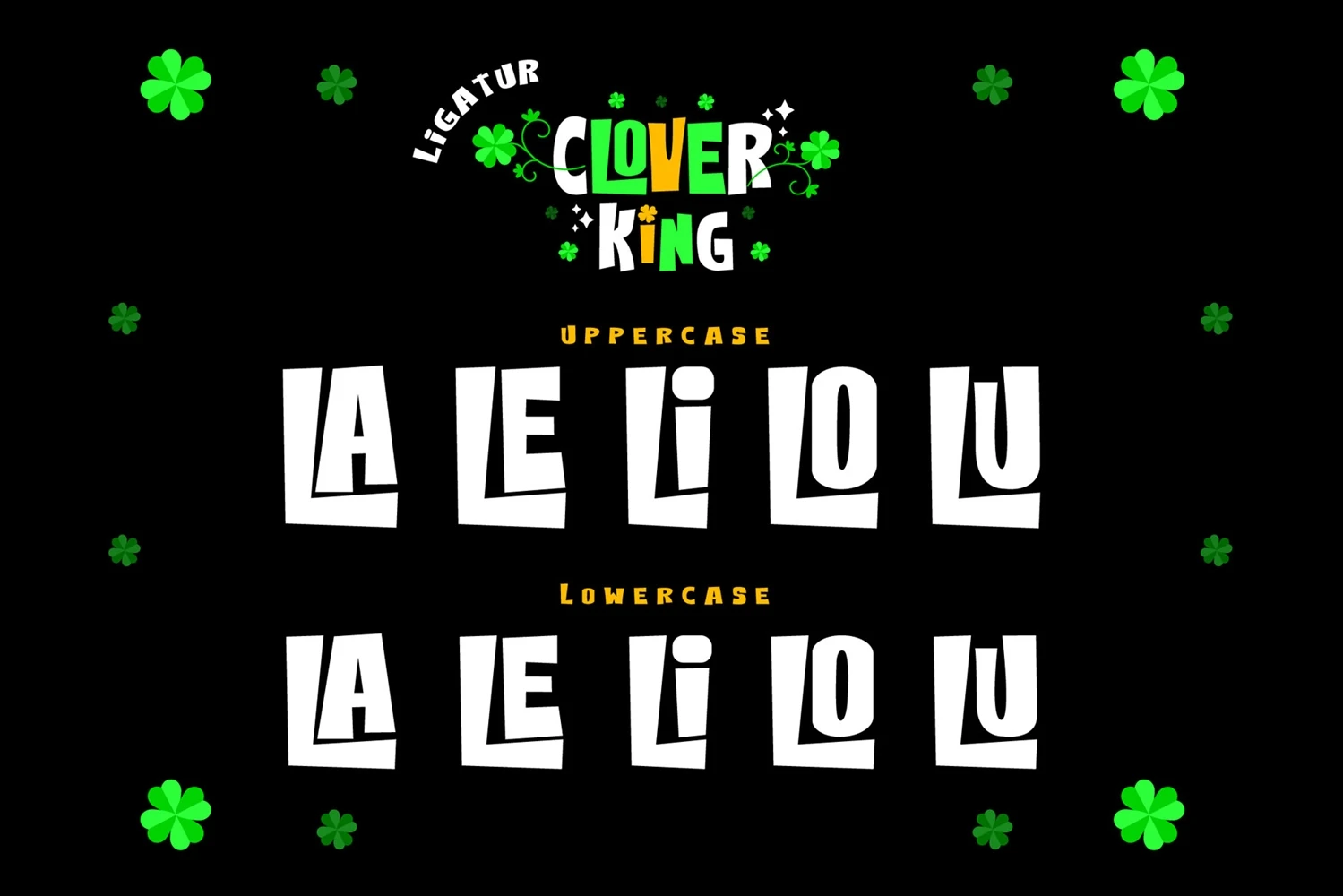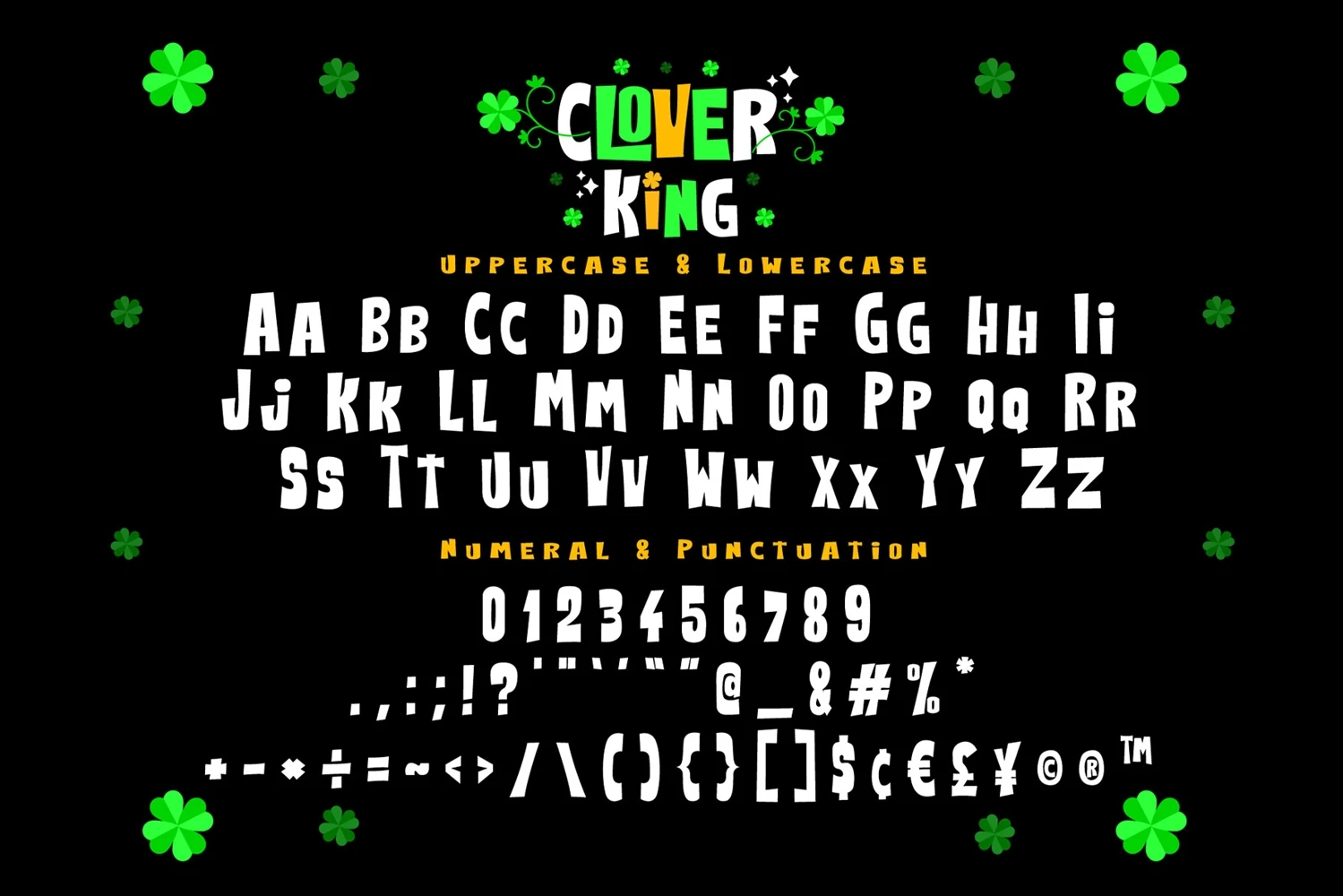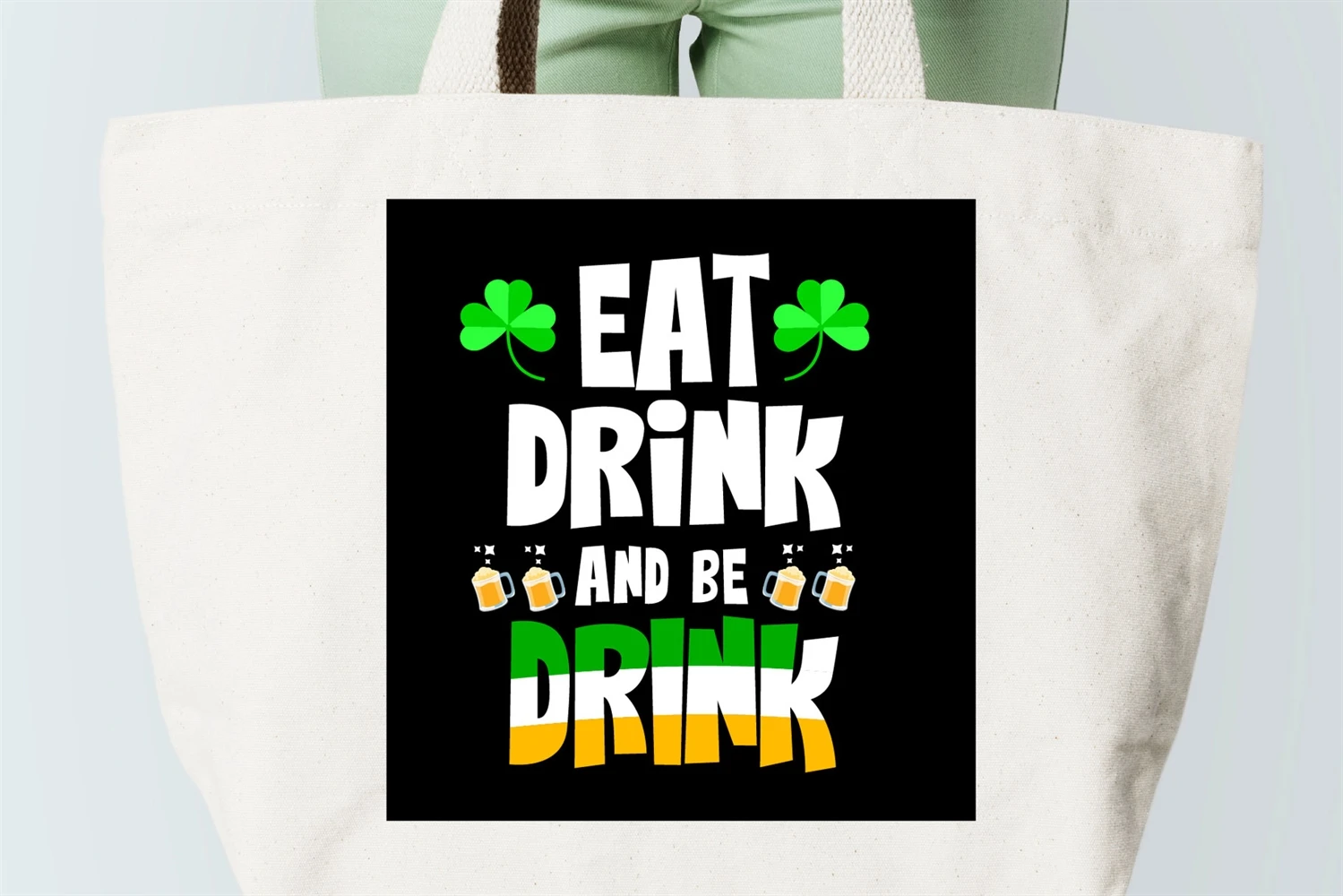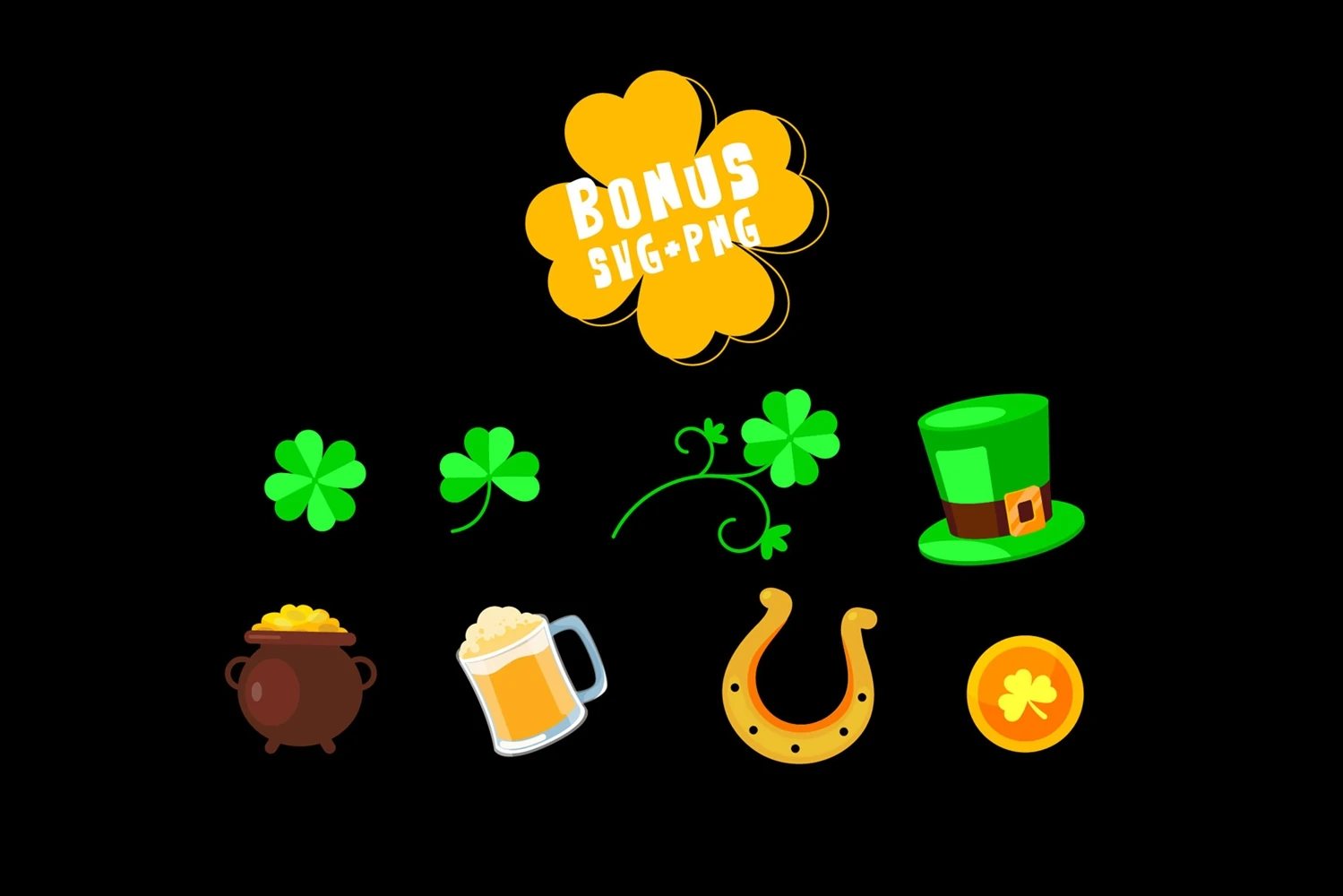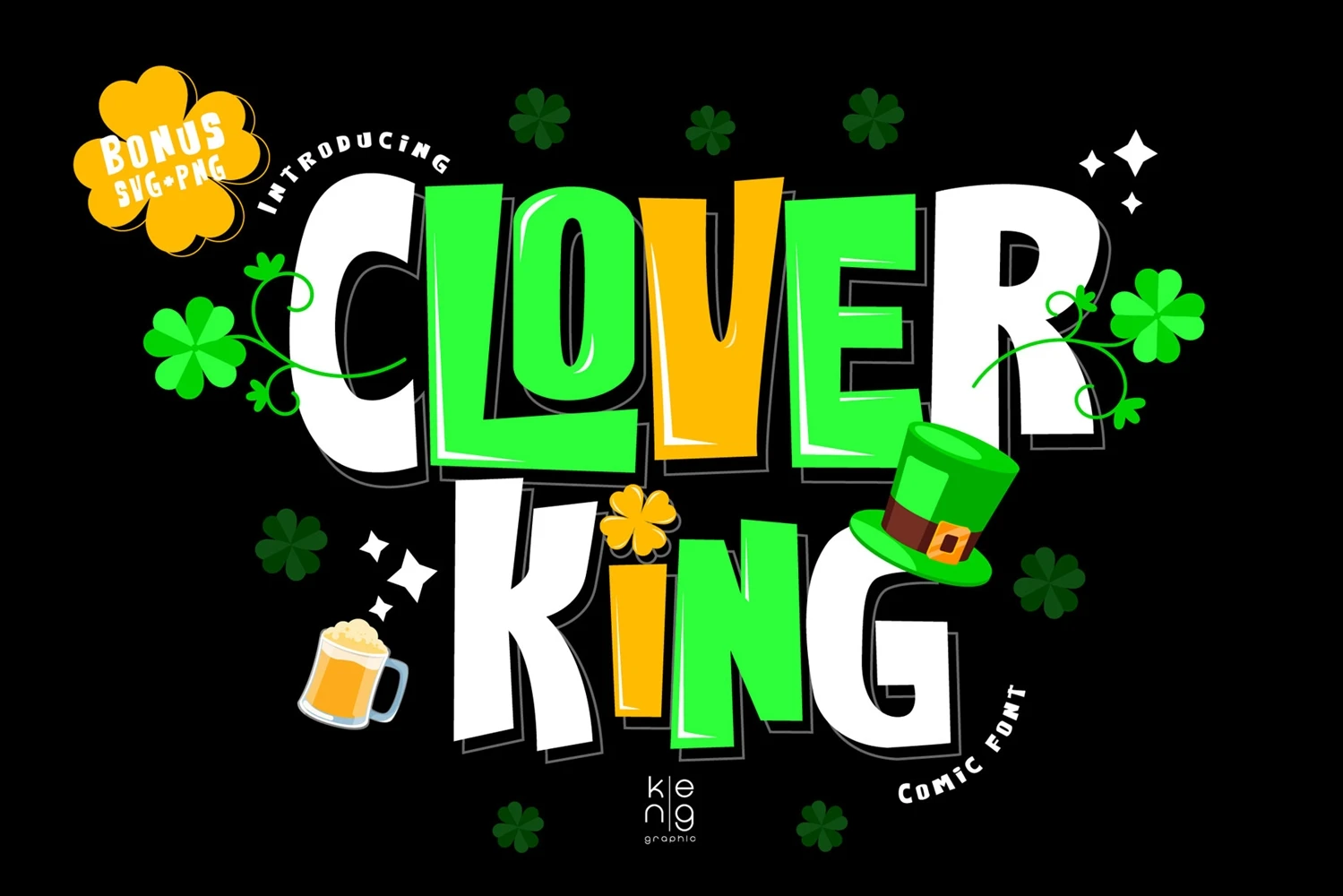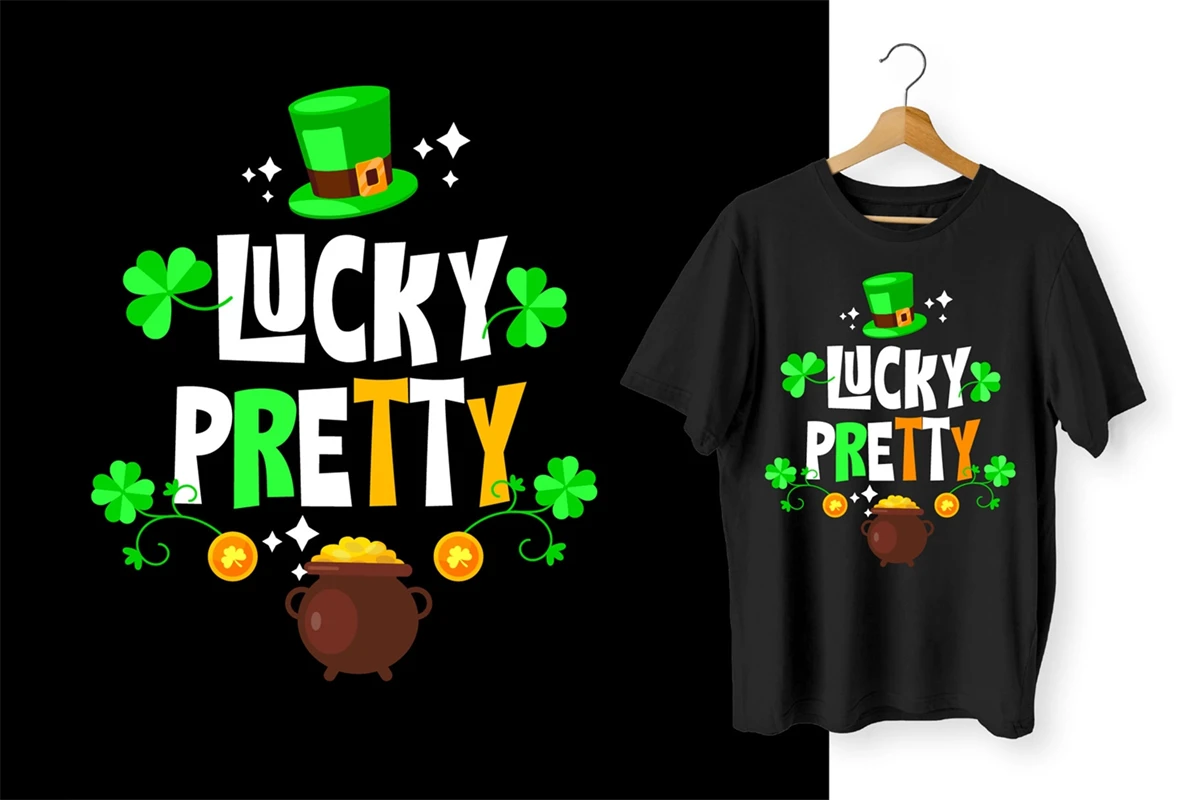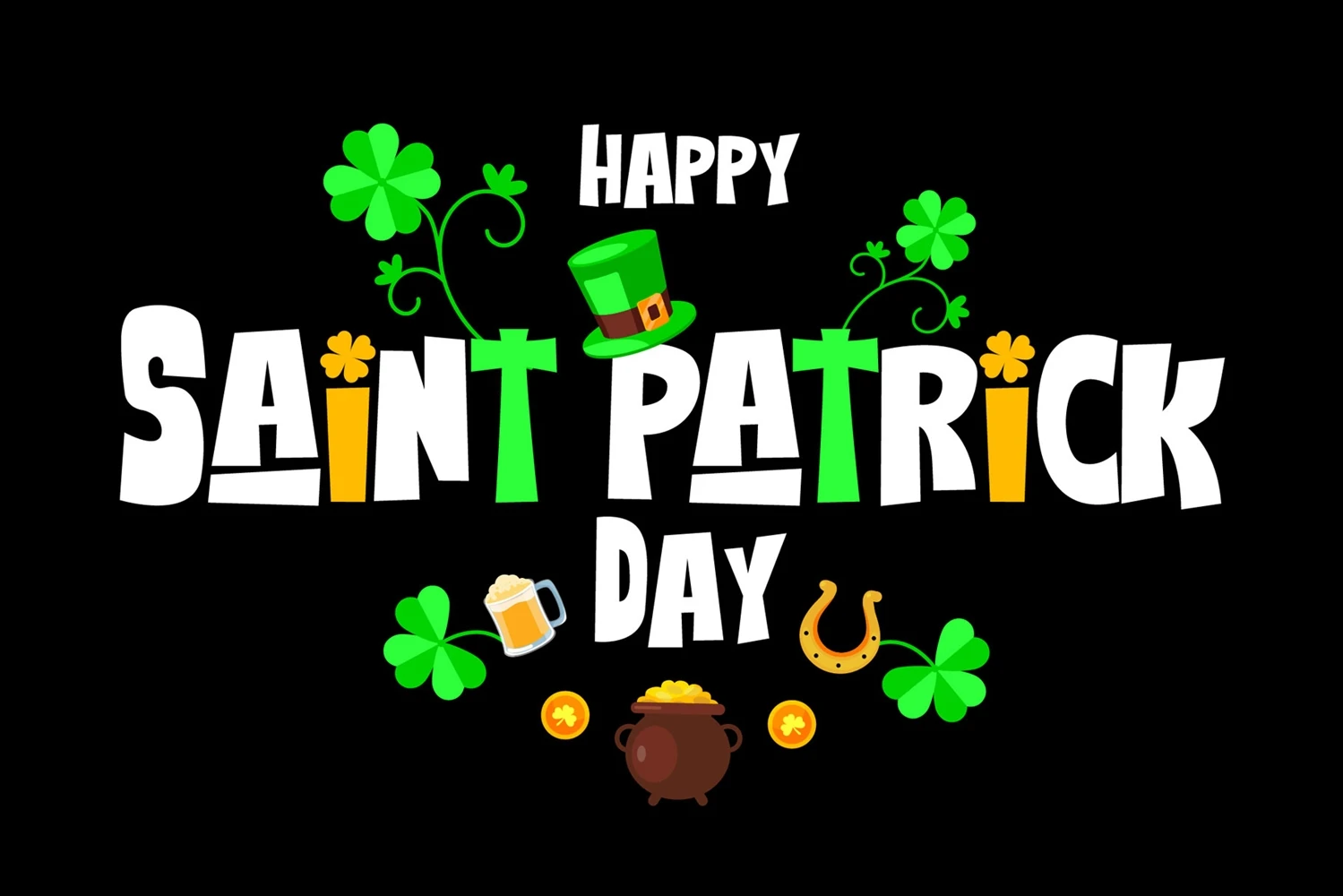
Clover King is an eye-catching and modern display font. The unique style of this font will be instantly recognizable and will attract attention. It will work great for comic book style, online games, cards, love shirts, posters, movie titles, eye-catching social media posts, or anything that requires youthfulness and courage. It is also PUA encoded which means you can access all of the glyphs and swashes with ease!